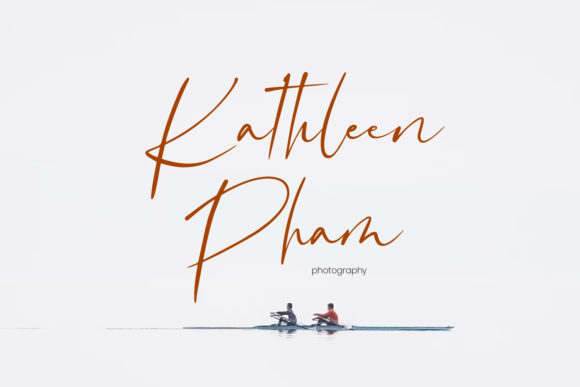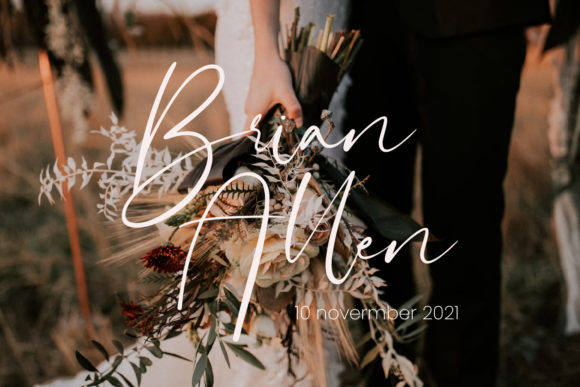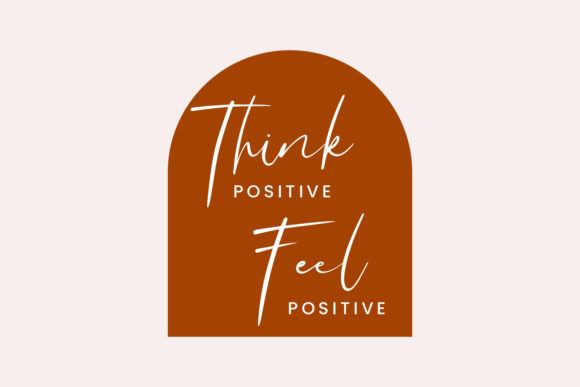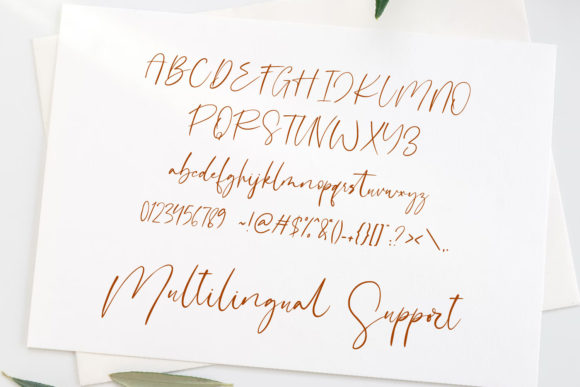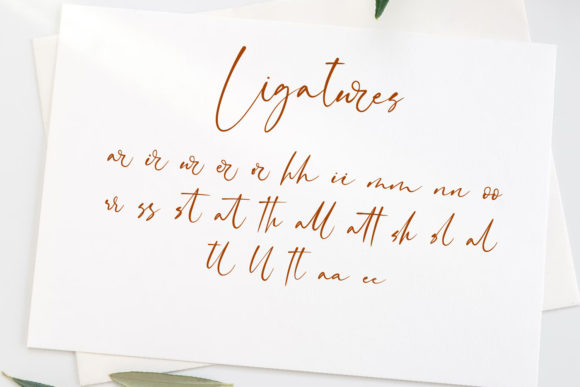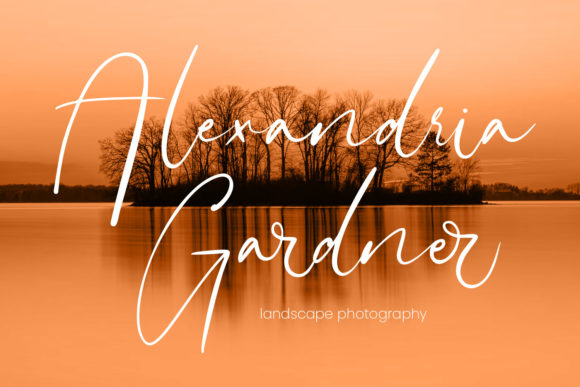
Thinkable Font
Thinkable is a stylish calligraphy typeface with characters that dance along the baseline. It will add a luxury spark to any design project that you wish to create! This font is PUA encoded which means you can access all glyphs and swashes with ease!